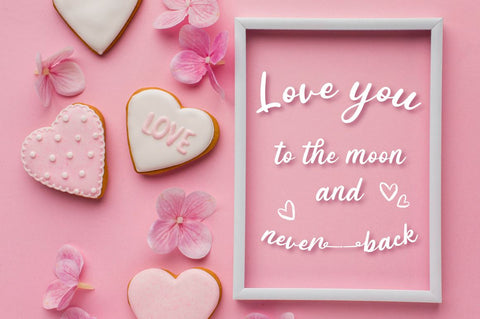
Pinky Sunday - Valentine Font
Pinky Sunday is a Script Vintage font with stylistic set and alternates.
Combine Pinky Sunday stylistic set to get amazing letterform!
Fall in love with its incredibly versatile style and use it to create spectacular designs!
Pinky Sunday is perfect for branding, logo, invitation, quotes, apparel design, product packaging, merchandise,
game titles, cute style design, Book/Cover Title and more.
- Beginning & Ending Swash